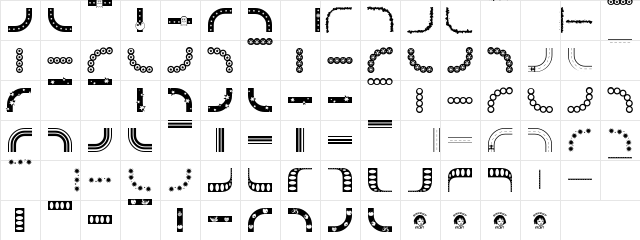
BorderMon Series 1
Style: Series 1
Design Context for BorderMon
BorderMon is a composed and adaptable typeface that performs quietly and consistently across a wide range of design contexts.